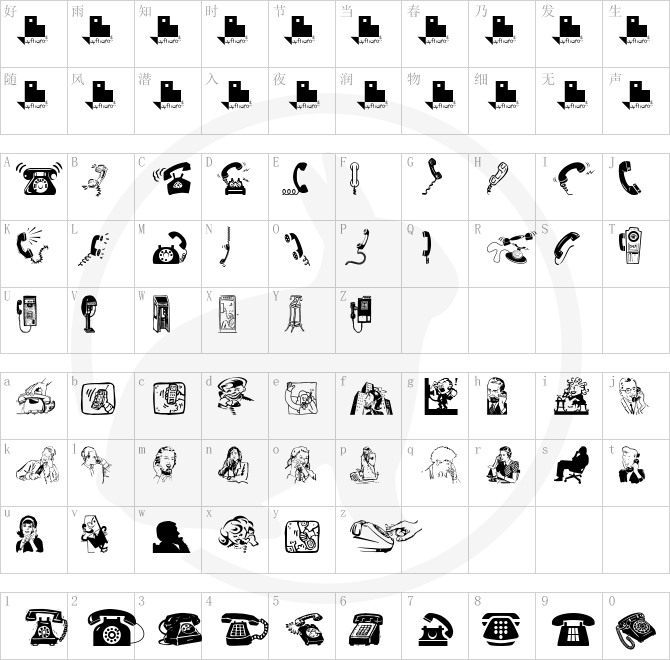
- Font Name:I AM TELEFONO
I-AM-TELEFONO.ttf is a very beautiful artistic font, I-AM-TELEFONO.ttf is widely used in the design and printing of various books and pictures,I-AM-TELEFONO.ttf has a strong visual impact,I-AM-TELEFONO.ttf is a commonly used font in newspapers, magazines and books, and is used in posters, e-commerce Poster design, store design, logo design, font design and other fields.I-AM-TELEFONO.